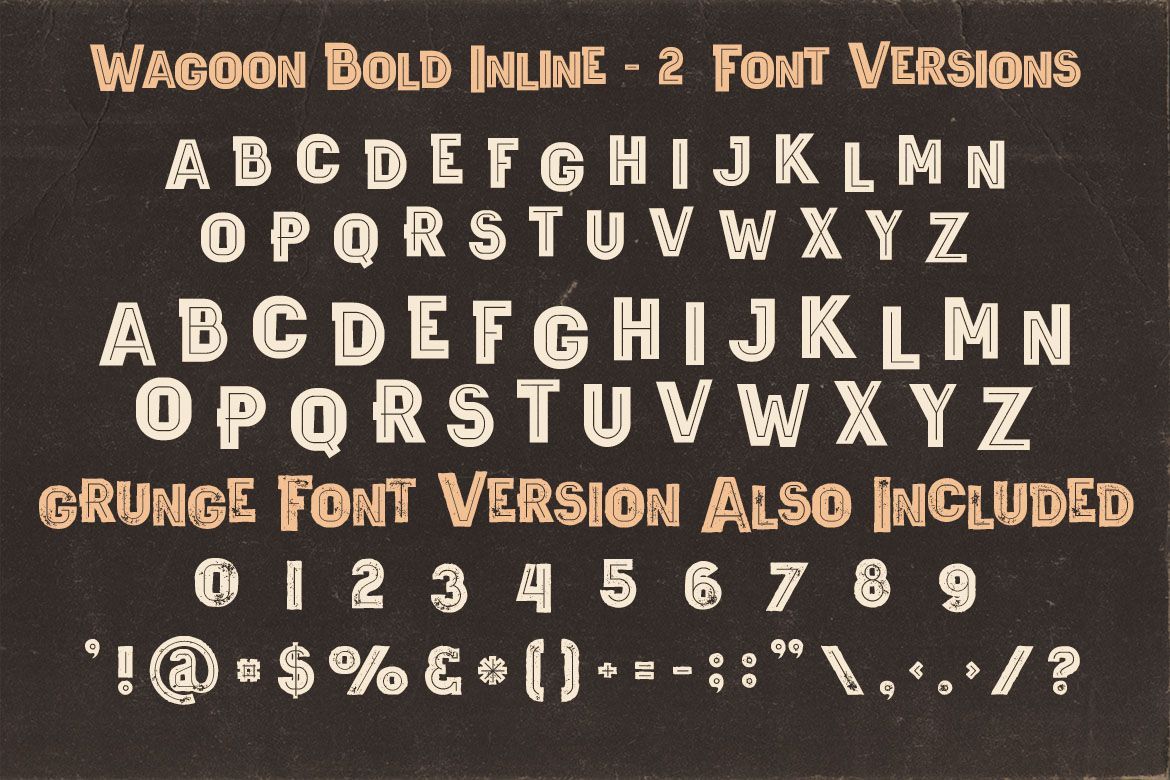
Cartoon style display or crazy sans font for your new projects. Great for your funny/cartoon headers or identity!
• english characters, numbers & special characters